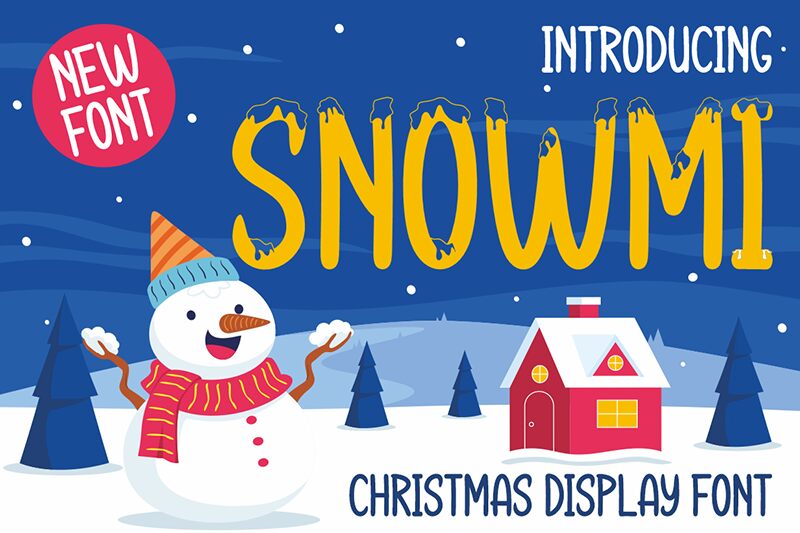
Snowmi font family, designed by Gilang Ternadho, is a festive and whimsical free font collection available in two unique styles. This lively and modern display font combines decorative elements that evoke both fire and ice, offering seasonal appeal with an inviting and informal design. Snowmi captures a cheerful ambiance perfect for holiday-themed projects and more.
The font is suitable for creating posters, holiday cards, game graphics, website headlines, social media content, advertising campaigns, kid’s book covers, and even animated video titles. This free font fits perfectly into projects seeking a playful and engaging aesthetic.